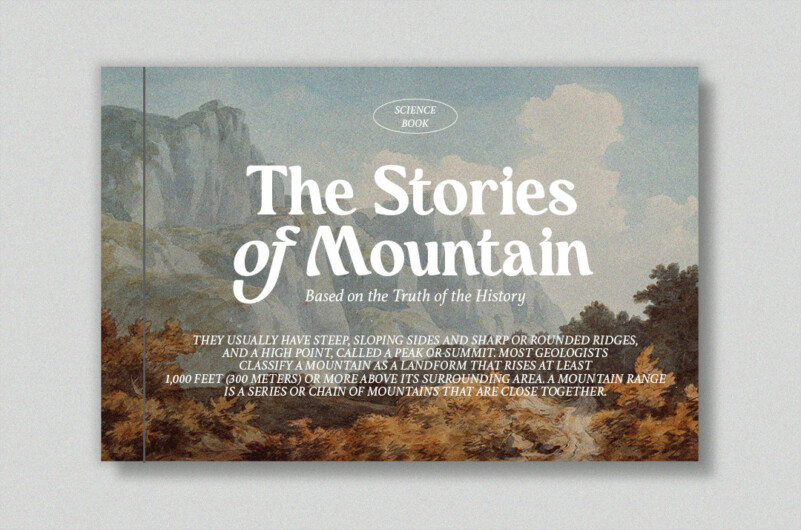
Mufteya Serif Font
Mufteya Serif Font is a modern serif with some retro touch and stylish font, you can combine to get any variations and unique shapes easily just in seconds. Use it as an perfect solution for your next vintage logo, layout design, vintage poster, magazine headers, or simply as a stylish text overlay to any background image.